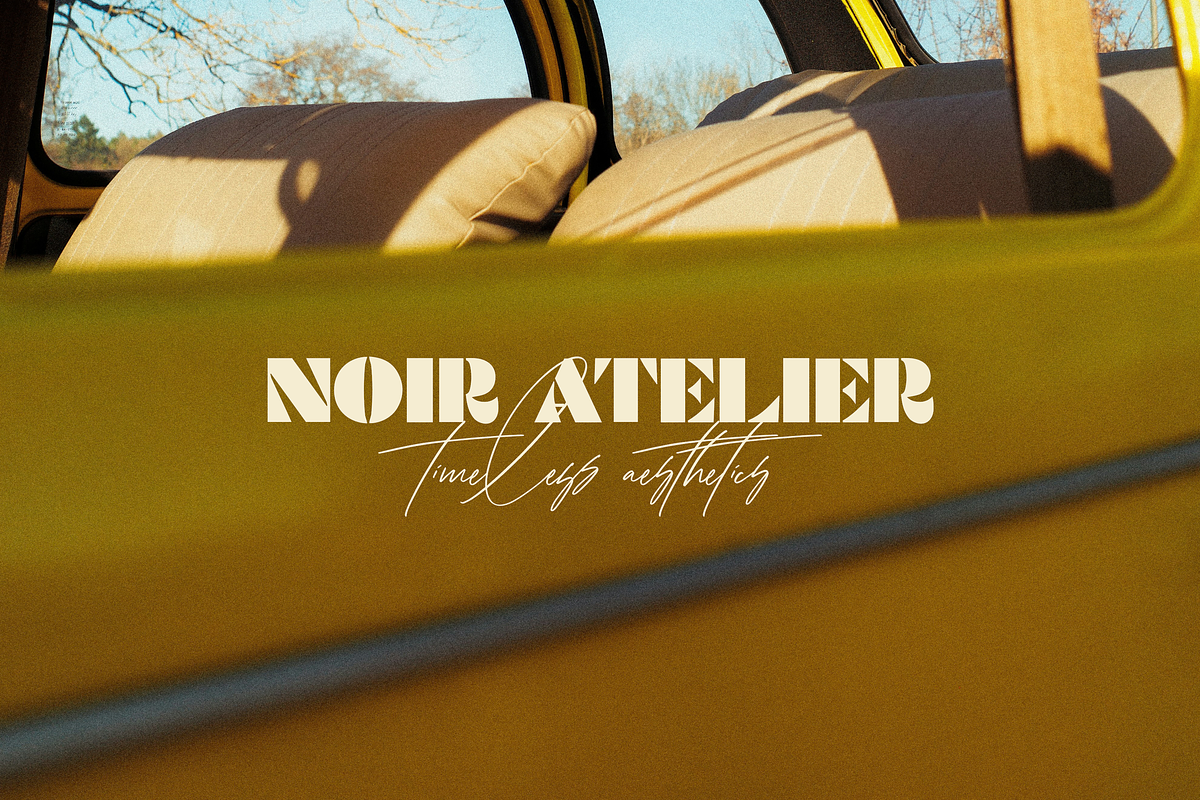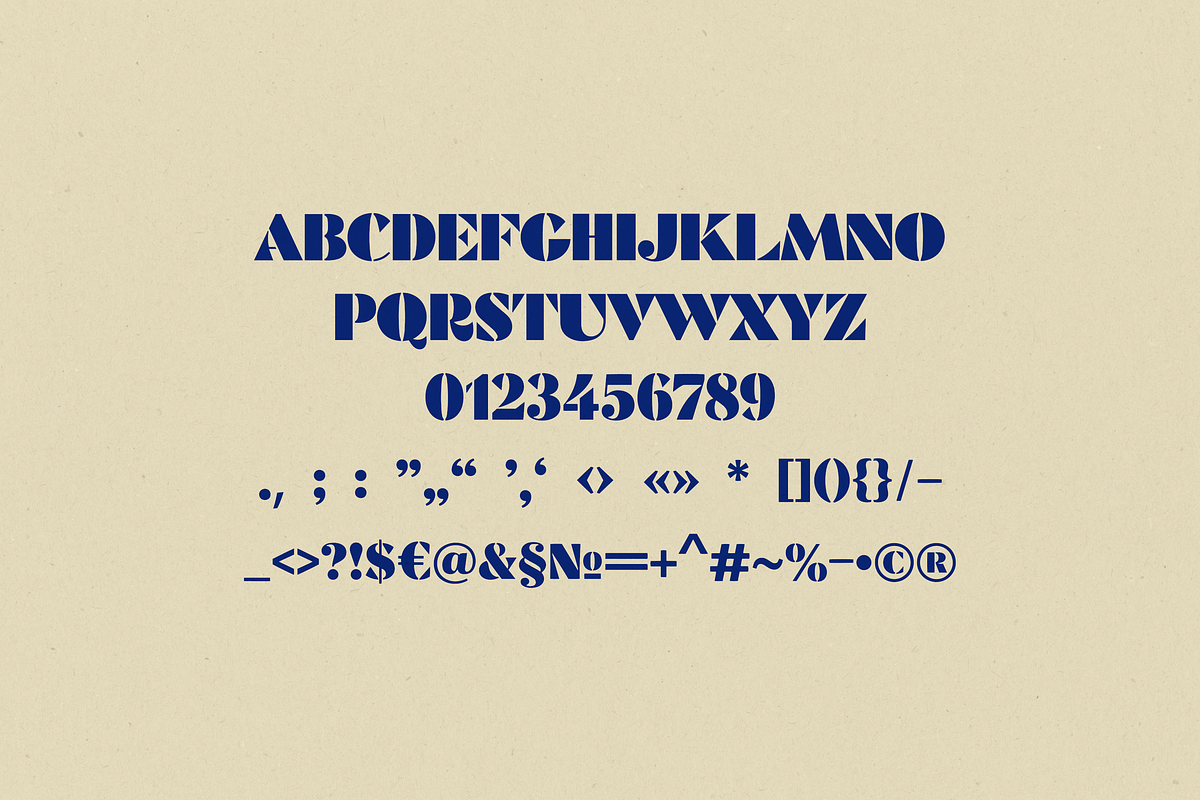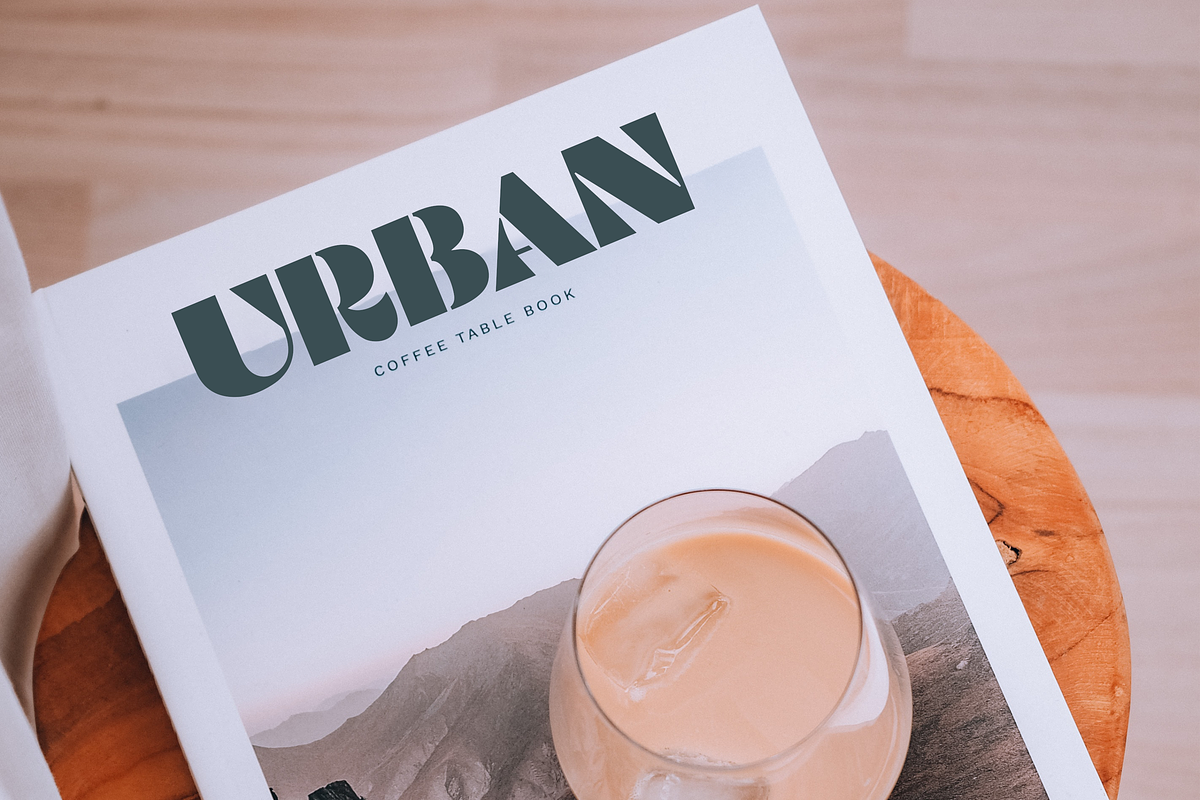
Noir Cut Font
Noir Cut is a bold all-caps display font with a striking Art Deco feel. Perfect for logos, posters, branding, packaging, editorial headlines, and stylish creative projects.